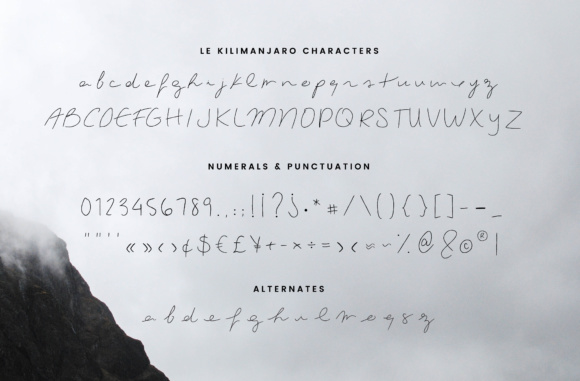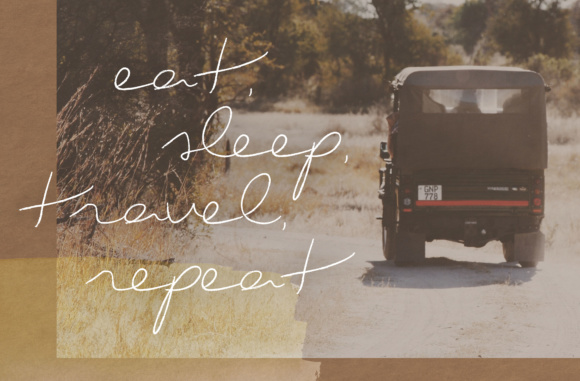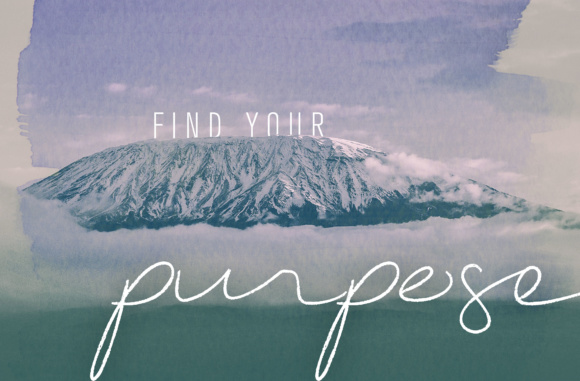
Introduction to Le Kilimanjaro Font
You know that moment when you’re working on a creative project and you just can’t seem to find the right font to bring it all together? The text feels flat, the message isn’t getting across, and you’re about to pull your hair out. That’s when I stumbled upon the Le Kilimanjaro Font, and it was like a breath of fresh air. This elegant handwritten script is more than just a pretty face – it’s a game-changer for designers looking to add a touch of class and personality to their work.
With its delicate signature feel and brush texture, Le Kilimanjaro Font is the perfect design resource for anyone looking to elevate their creative project. Whether you’re a graphic designer, illustrator, or writer, this high-quality font is sure to impress. And the best part? It’s a free download, complete with 11 high-quality watercolor textures to take your designs to the next level.
Key Features of Le Kilimanjaro Font
- High-quality, unique design suitable for various creative projects
- Transparent background, making it easy to use with different design resources
- High-resolution design, suitable for use in print and digital media
- Designed to be versatile, with a wide range of applications in design and art
Honest Review: Le Kilimanjaro Font
As a designer, I’m always on the lookout for high-quality design resources that can elevate my creative projects. Recently, I stumbled upon the Le Kilimanjaro Font, and I must say, it’s been a game-changer for me.
- ✨ Unique and stylish design: The Le Kilimanjaro Font has a distinct, modern aesthetic that sets it apart from other fonts.
- ✨ High quality: The font is crisp and clear, making it perfect for print and digital projects.
- ✨ Transparent background: This feature allows for easy layering and manipulation of the font in design software.
- ⚠️ Limited font variations: While the font is stylish, it’s limited to a single weight and style, which may not be suitable for all design projects.
- ⚠️ Not ideal for body text: Due to its unique design, the Le Kilimanjaro Font may not be the best choice for large blocks of body text.
Overall, I’m thoroughly impressed with the Le Kilimanjaro Font. Its unique design, high quality, and free download make it a valuable resource for any designer. While it may have some limitations, I believe it’s a great addition to any design toolkit.
Tips for Getting the Most Out of Le Kilimanjaro Font
Use Le Kilimanjaro Font in combination with other design elements, such as graphics and images, to create visually appealing designs. Experiment with different font sizes, colors, and styles to add depth and interest to your designs. Le Kilimanjaro Font is a high-quality design resource that can elevate your creative projects.
Common Use Cases for Le Kilimanjaro Font
Le Kilimanjaro Font is perfect for creating logos, business cards, and other marketing materials. It can also be used in presentations, documents, and graphics. With its transparent background and high-quality design,